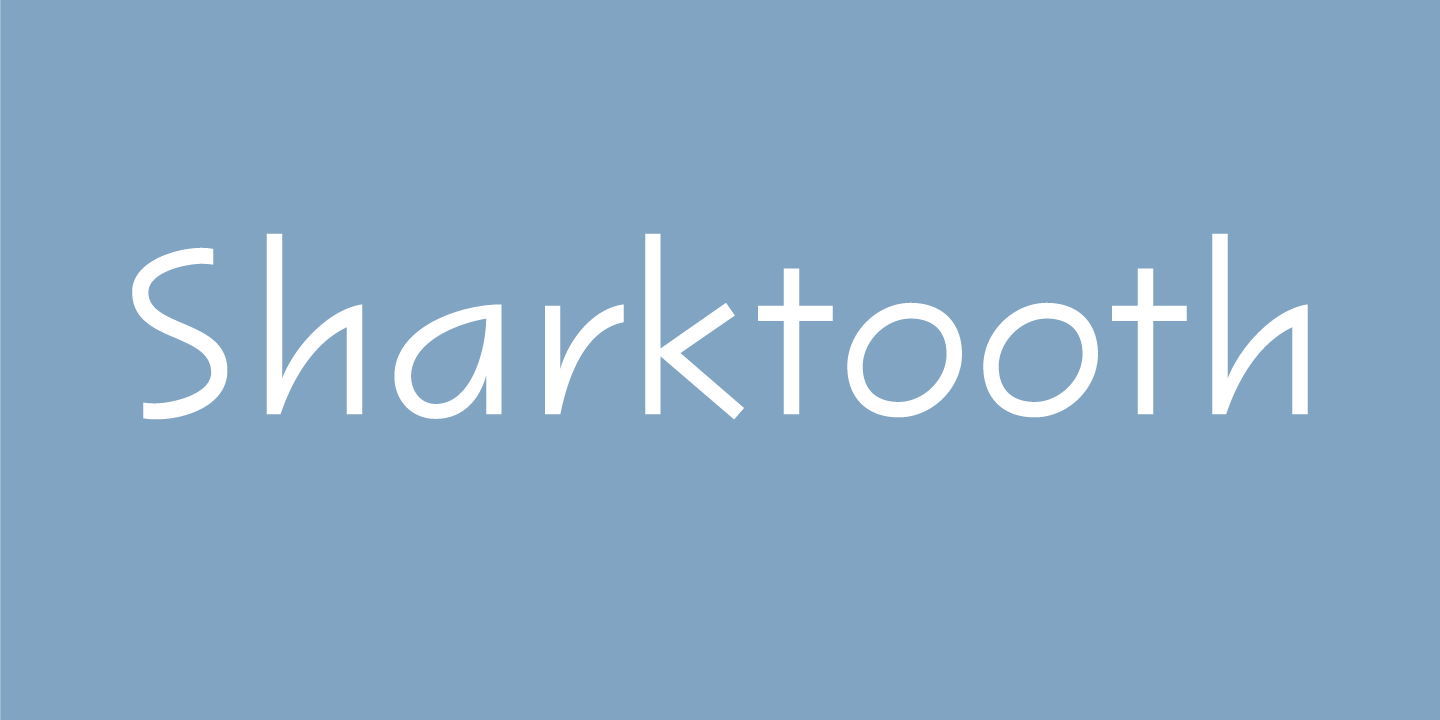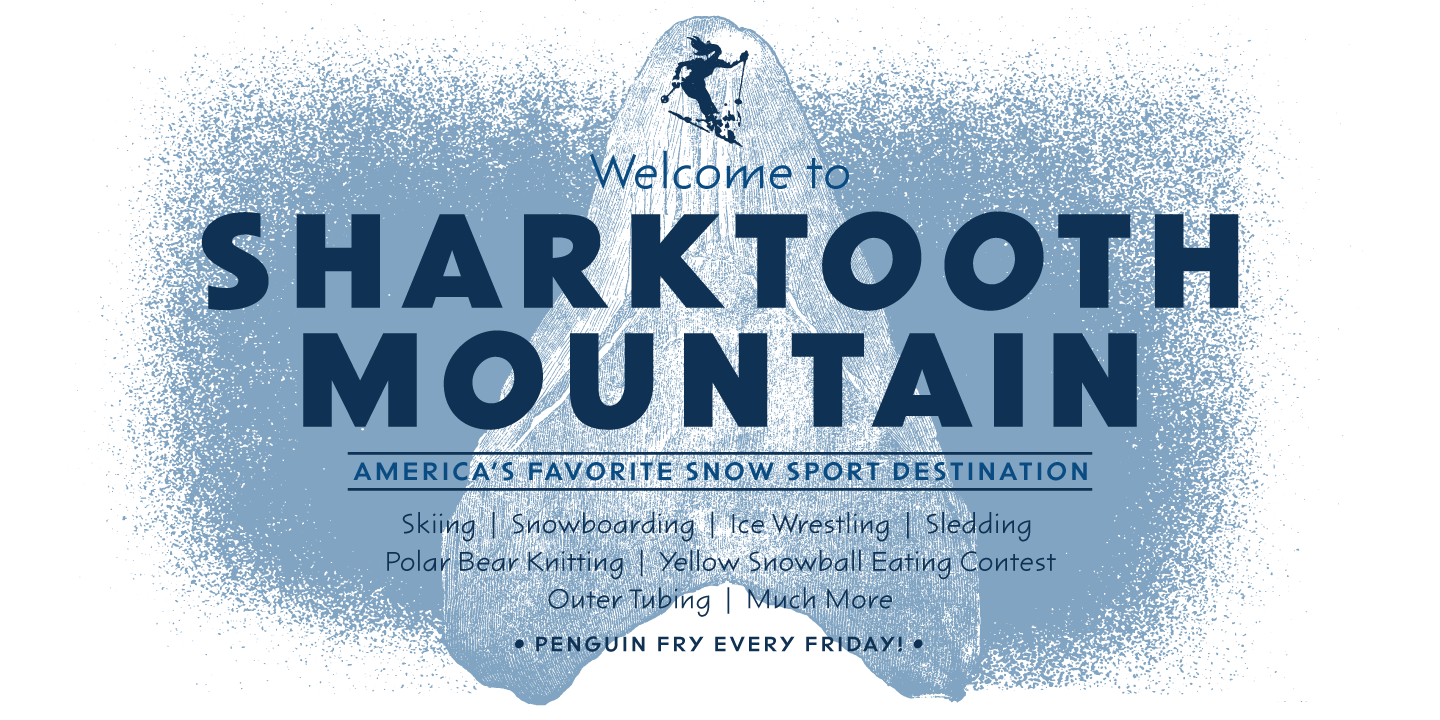
About the Sharktooth Font
About Sharktooth Font Family Sharktooth is a somewhat geometric design based loosely on the designer’s earlier typeface Felt Tip Roman (licensed to DsgnHaus), It suitable for either for display or text, Designers: Mark SimonsonPublisher: Mark SimonsonFoundry: Mark SimonsonDesign Owner: Mark SimonsonMyFonts debut: Apr 19, 2002 Sharktooth™ is a trademark of Mark Simonson Studio